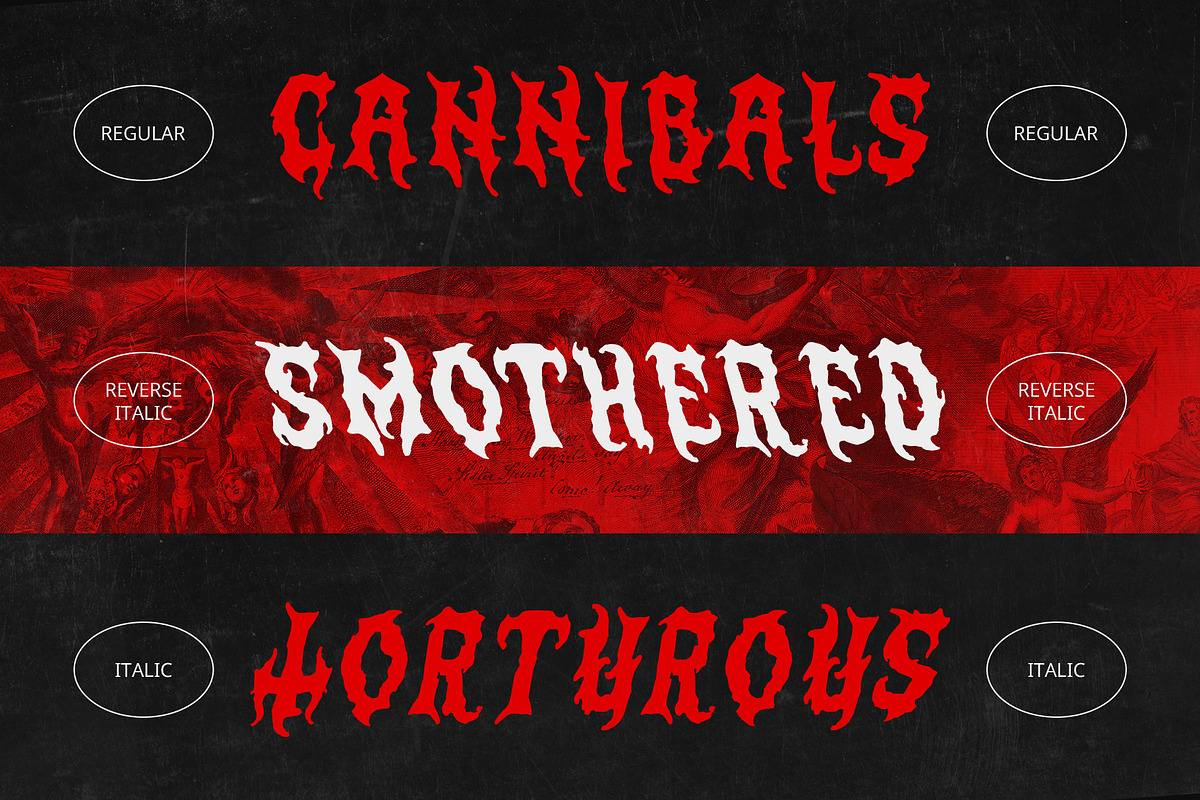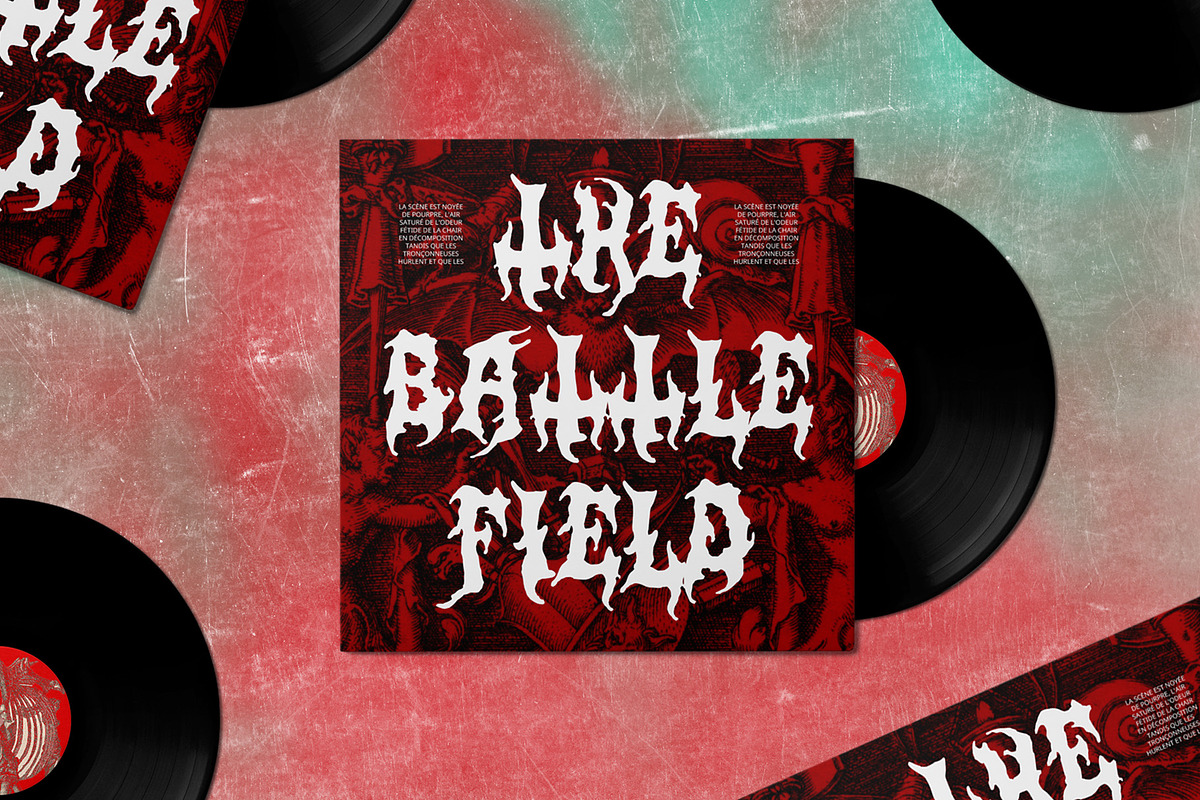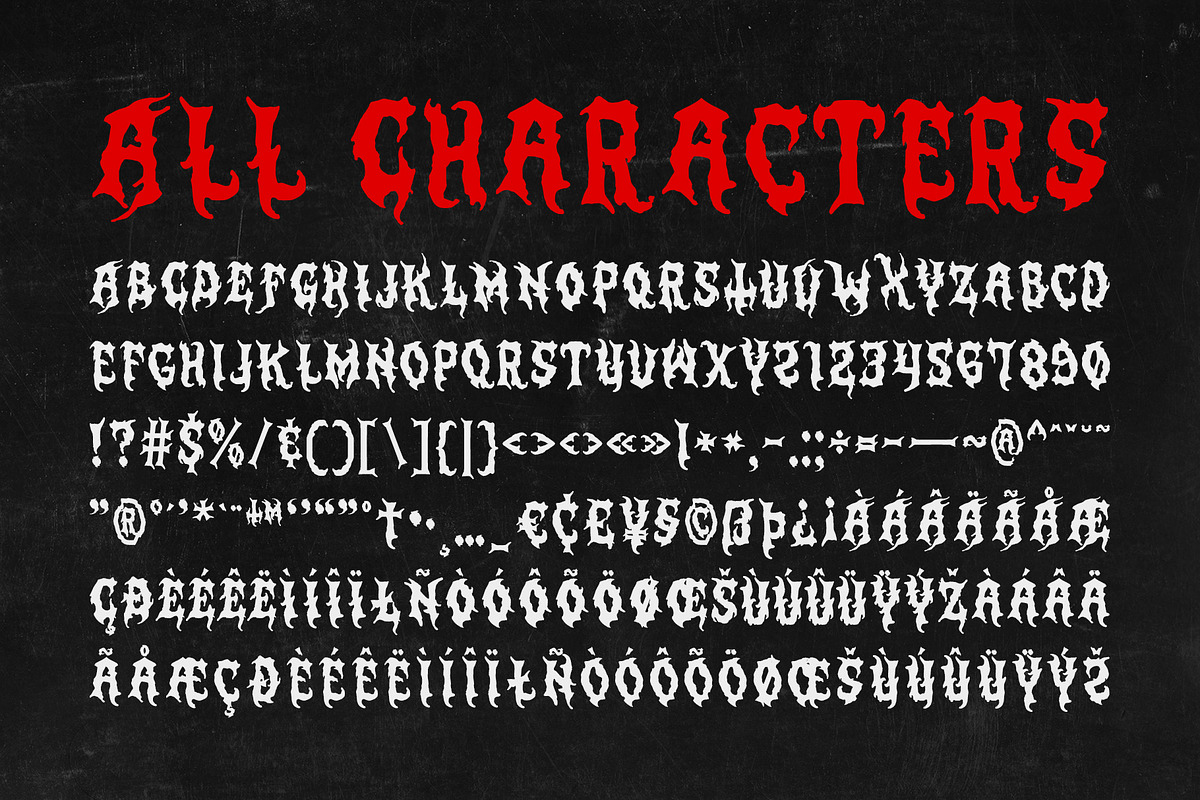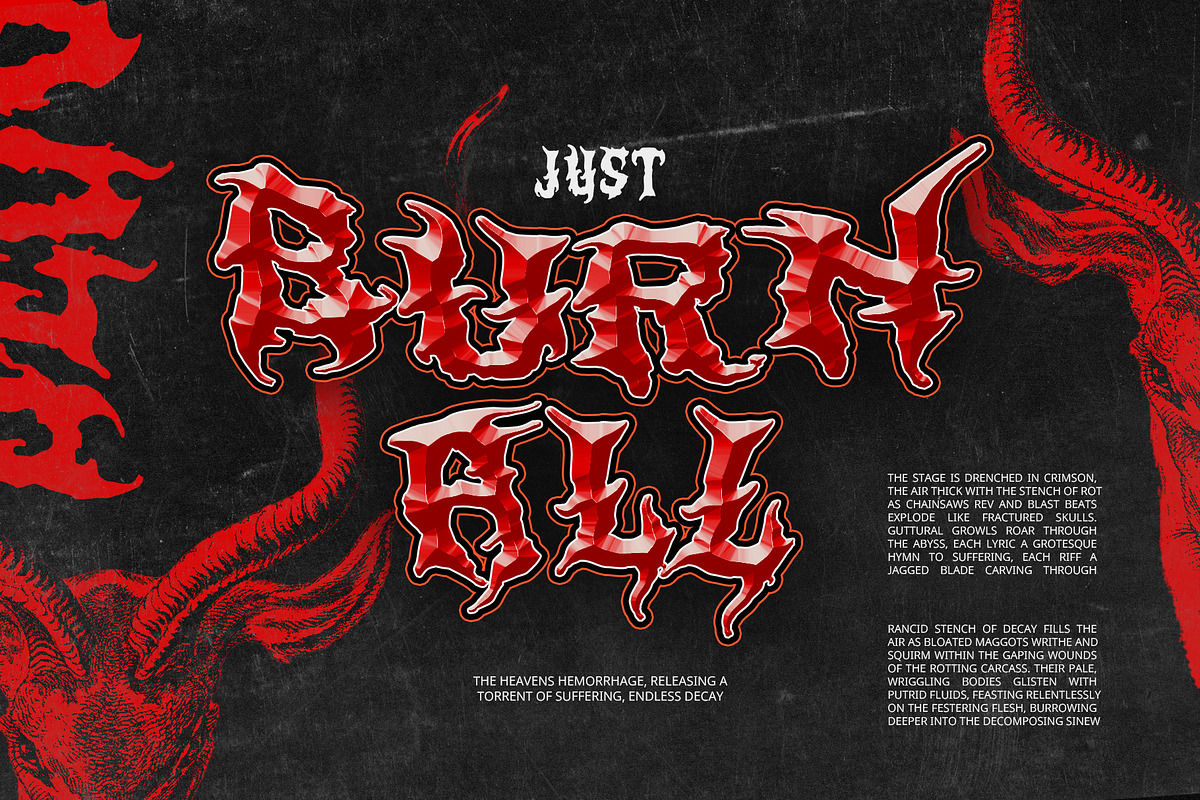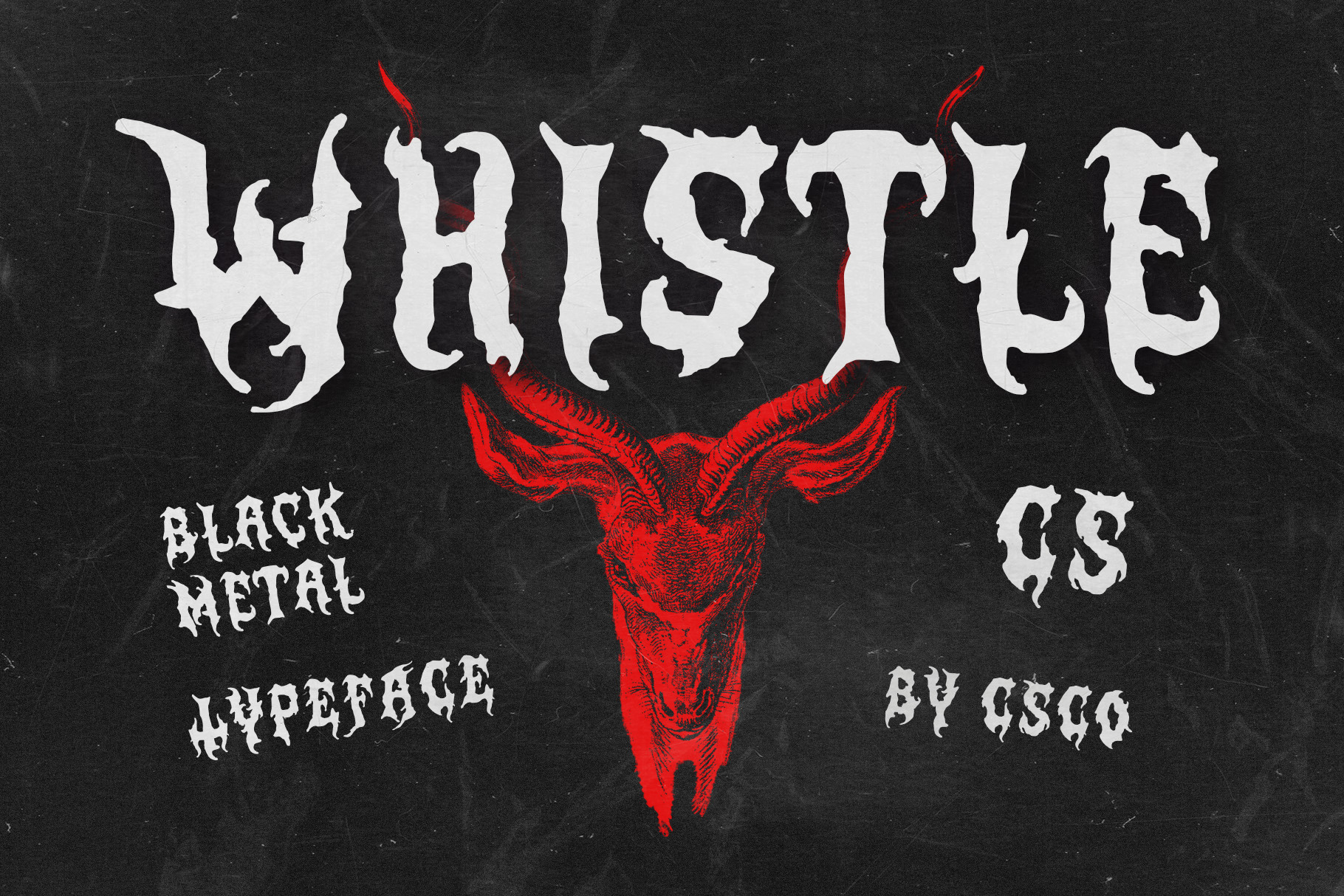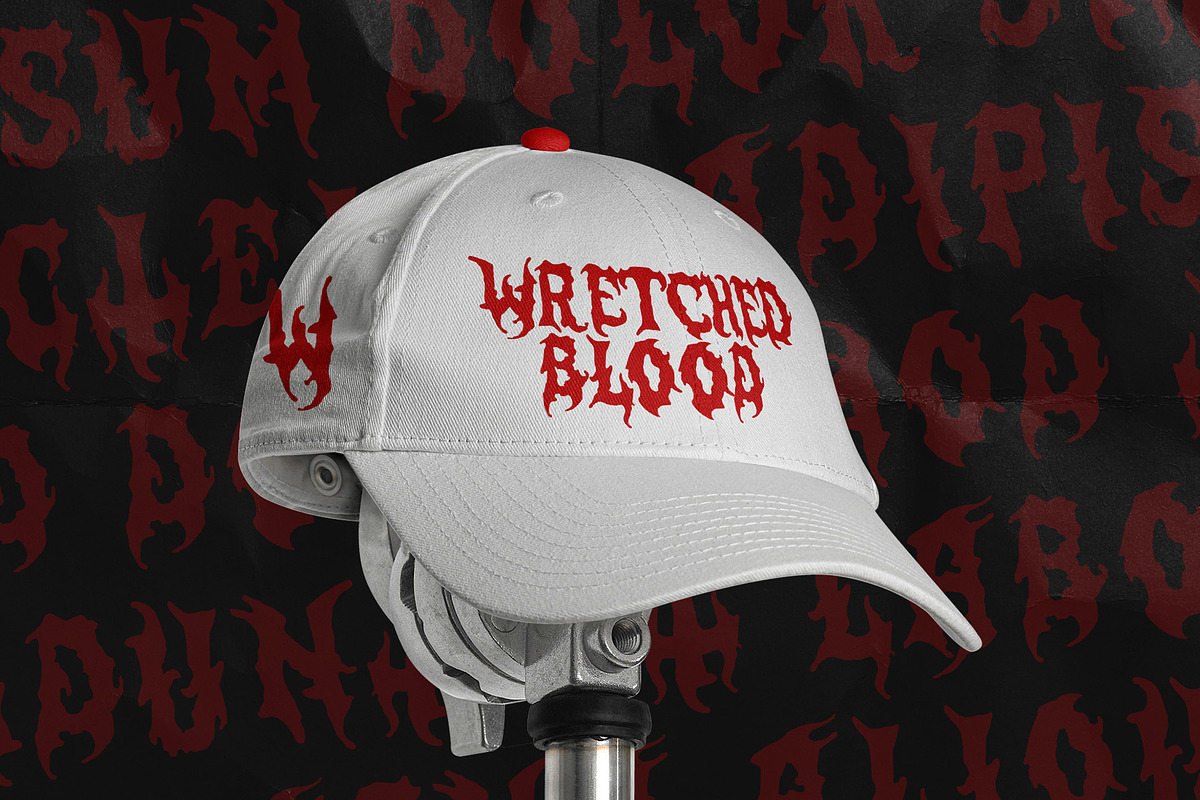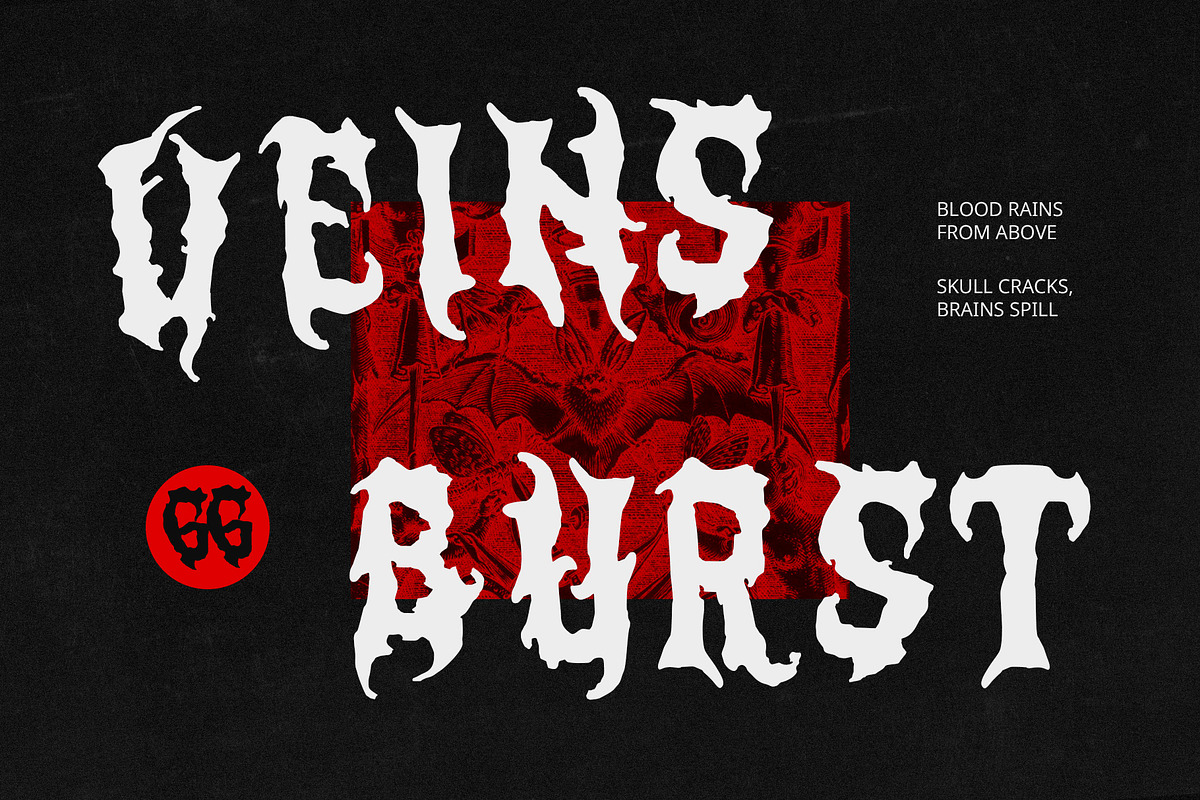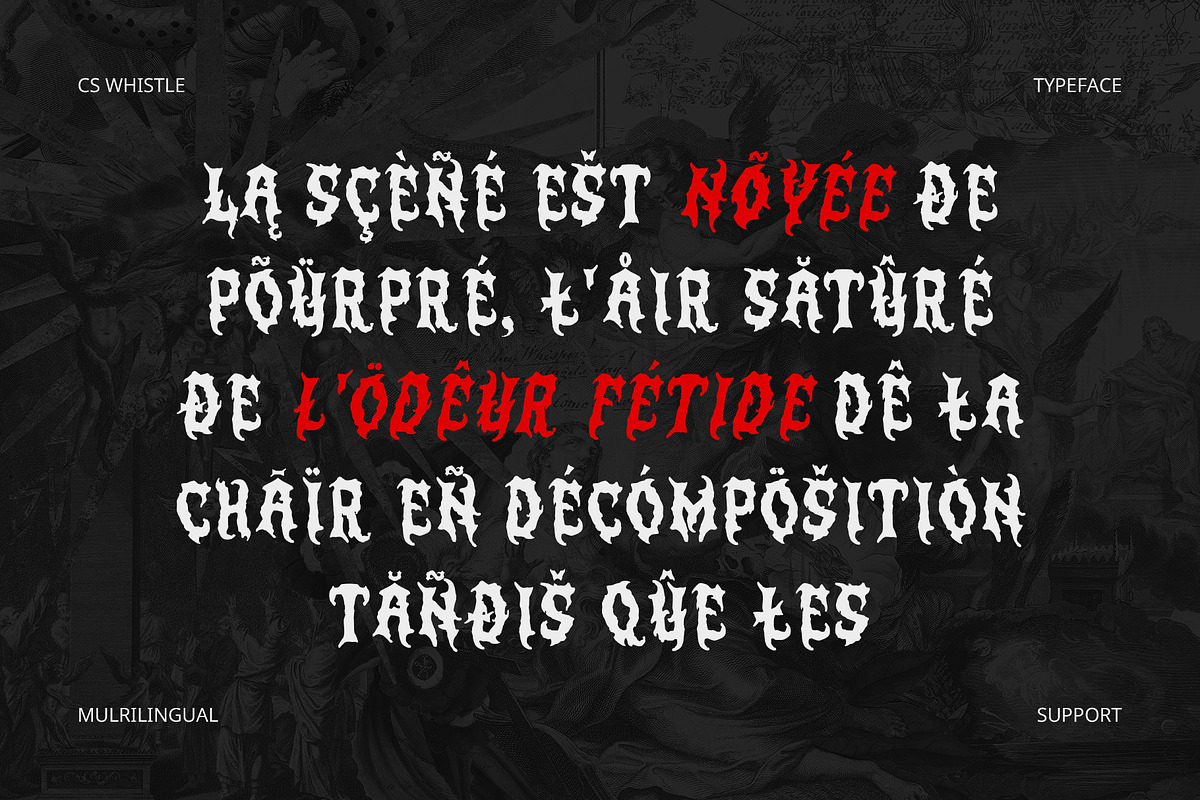
CS Whistle – Black Metal Font
CS Whistle – Black Metal Font: Chaotic, Raw, and Unrelenting
Dark and Brutal Aesthetic CS Whistle is a Black Metal display font designed to embody the chaotic and extreme energy of underground metal culture. With jagged edges, sharp spikes, and distorted strokes, this font exudes raw aggression and darkness, making it perfect for designs that demand a rebellious and menacing presence.
Organic and Harsh Textures Taking inspiration from gothic calligraphy, shattered metal, and twisted roots, CS Whistle features rough, hand-drawn elements that mimic dripping ink and fractured surfaces. The font’s highly stylized and almost unreadable nature is a hallmark of Black Metal aesthetics, reinforcing themes of mysticism, intensity, and destruction.
Perfect for Extreme and Underground Designs CS Whistle thrives in band logos, underground music posters, extreme album covers, and horror-inspired visuals. Its untamed and brutal structure captures the spirit of rebellion and artistic defiance, making it an essential choice for projects that embrace dark, atmospheric, and uncompromising themes.
Unapologetically Intense CS Whistle is more than a typeface—it’s a visual statement of power, chaos, and rebellion. Whether used for metal branding, extreme visuals, or gothic-inspired artwork, this font ensures a bold, haunting, and unforgettable impact.
- CS Whistle Regular
- CS Whistle Italic
- CS Whistle Reverse Italic